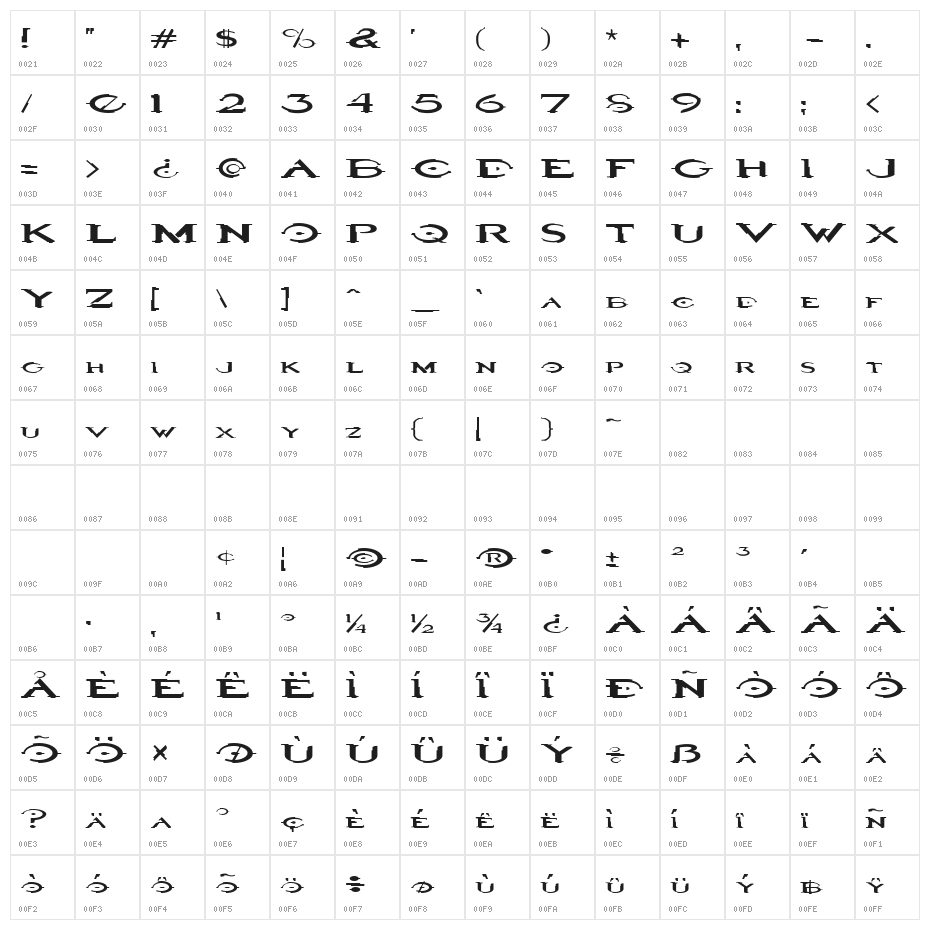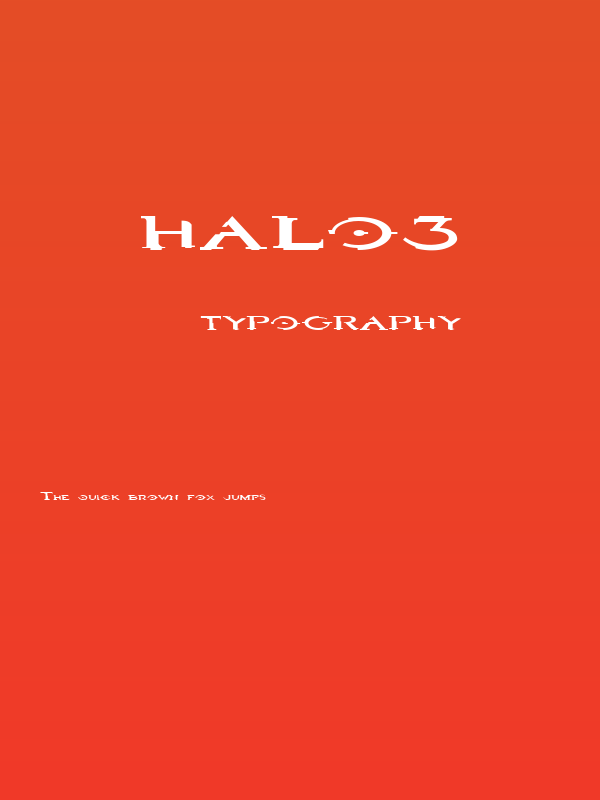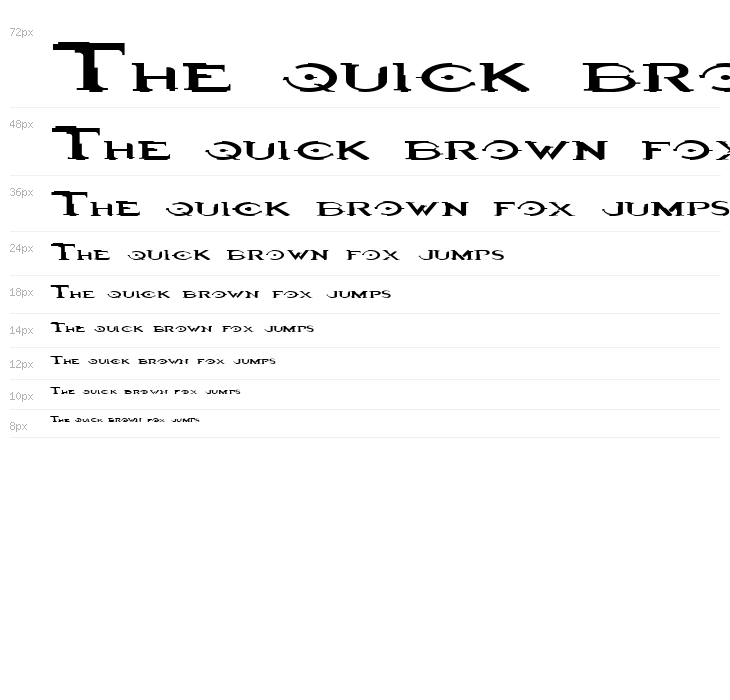
Halo3 Font
Halo3 Description
This font features a bold and futuristic design with sharp, angular lines and unique geometric elements. The characters exhibit a strong presence with their thick strokes and distinctive cutouts, creating a sense of movement and energy. The uppercase letters are particularly striking, with some characters incorporating circular motifs that add a dynamic flair. The numerals and special characters maintain this bold aesthetic, ensuring consistency across the typeface. This font is ideal for projects that require a modern and impactful look, such as video game titles, tech branding, or sci-fi themed designs.